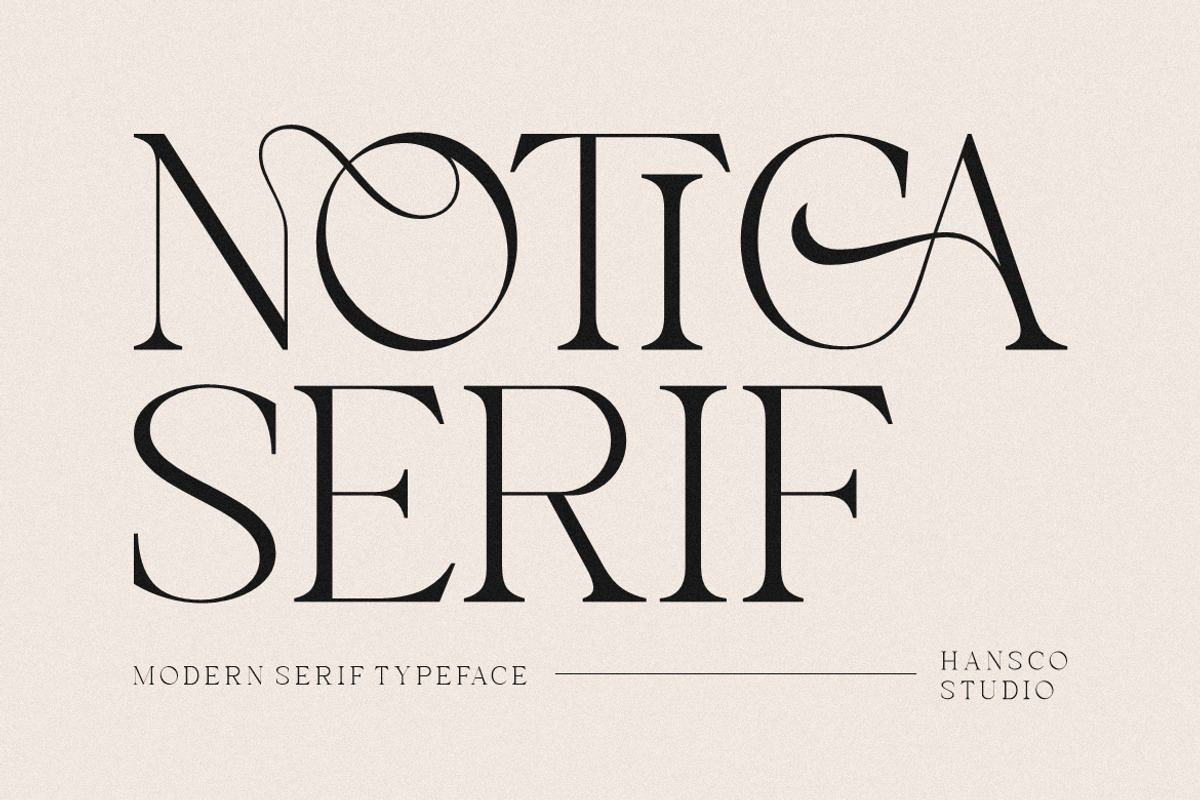
Elegant, timeless, and versatile, Notica Serif Font – Elegant Font Free Download is a sophisticated serif typeface designed to add a touch of class and professionalism to any design. Perfect for high-end branding, editorial layouts, invitations, logos, and packaging, Notica combines traditional serif design with modern sensibilities.
With its well-balanced letterforms, refined serifs, and clean lines, Notica offers exceptional readability and a refined, polished look. Whether you're creating an upscale brand identity or designing elegant print materials, this font adds sophistication and style to your typography.